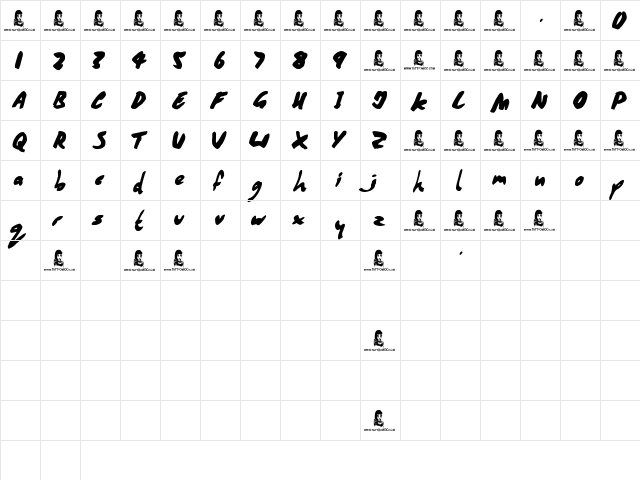
Coffee Mocha Regular
| Foundry | Jonathan S. Harris |
| Designer | Jonathan S. Harris |
Design Context for Coffee Mocha Typeface
Coffee Mocha is a composed and adaptable typeface that performs quietly and consistently across a wide range of design contexts.